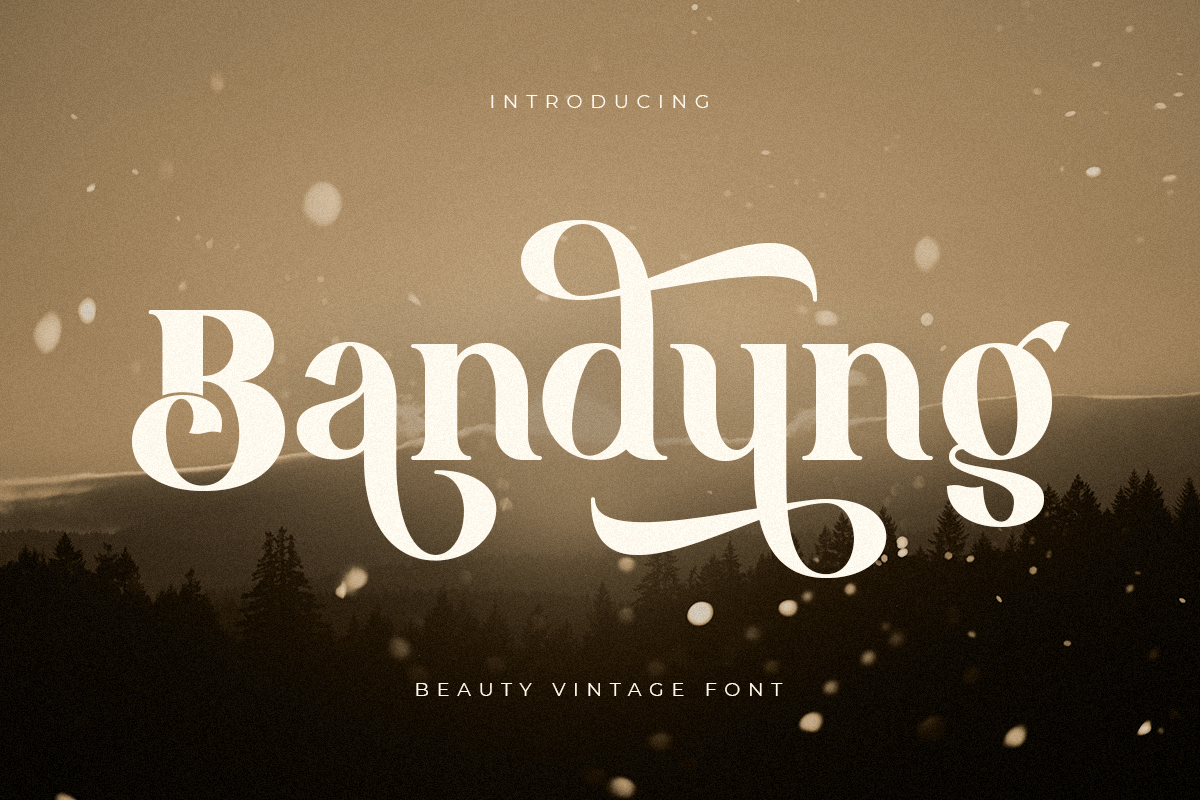
Bandung
-Beauty Vintage Ligature Font
Bandung
Bandung is A Beauty Retro Vintage Ligature font that special crafted with carefully to leverage your design project
A new font that we created special for branding needs, with unique characters and awesome ligature characters are ready to add value of your brand. It so nice to leverage designer or product owner that need solutions to make their design look more beauty and modern. And specially for Bandung font, We prepared any ligature characters to help you create unlimited variations for your creative needs.